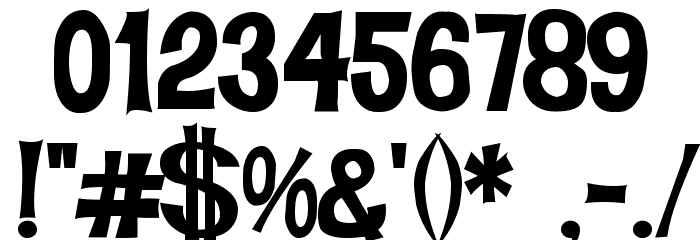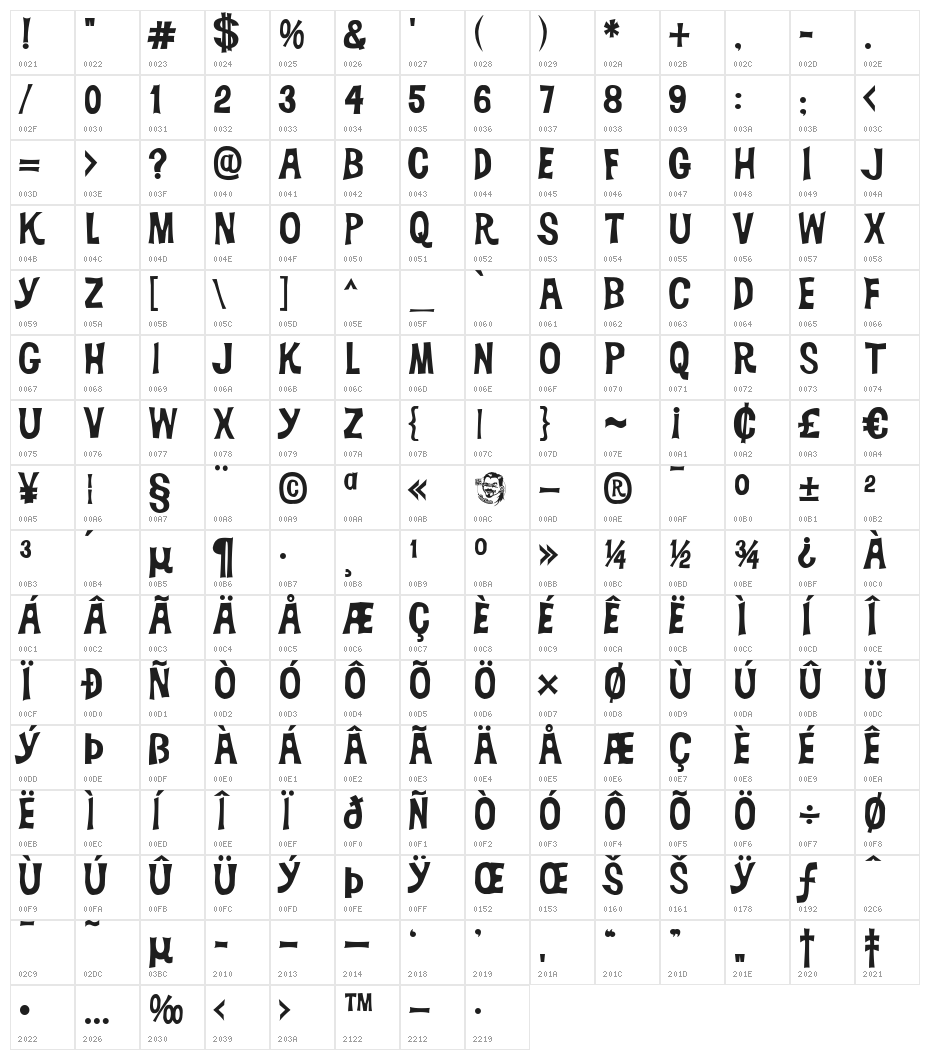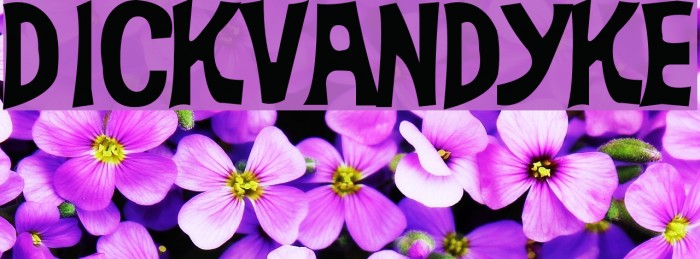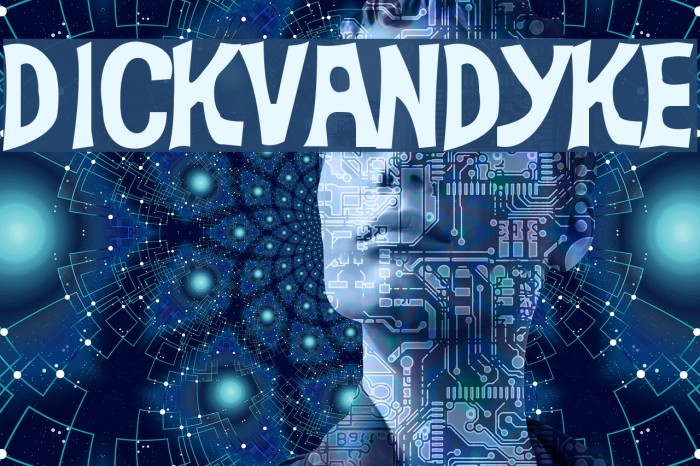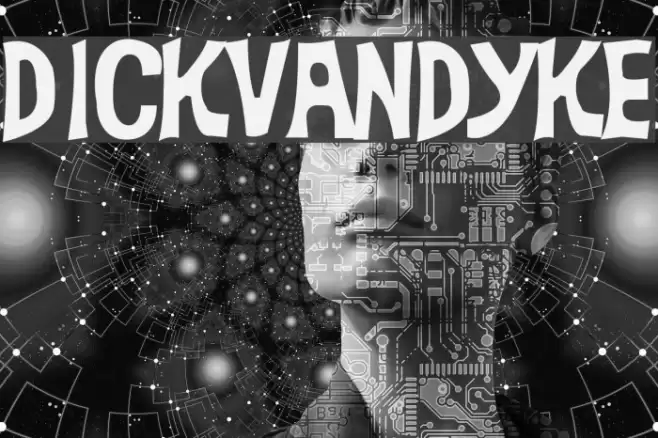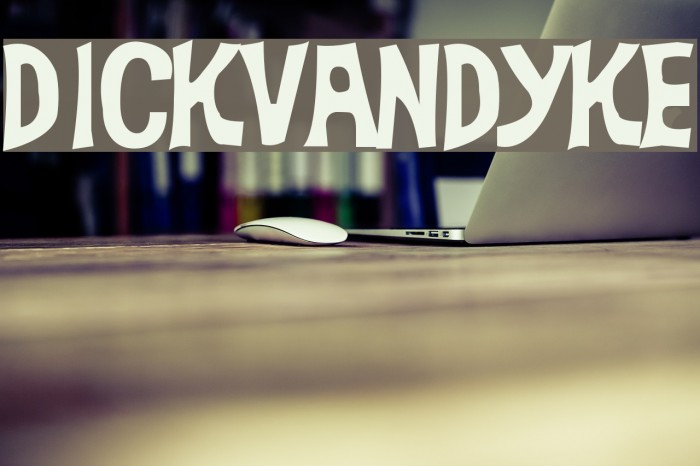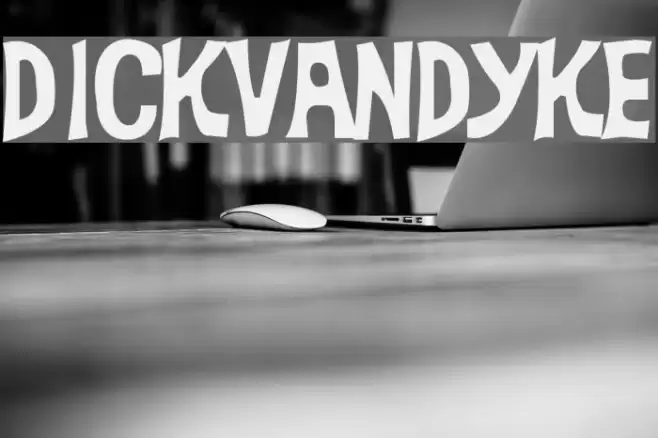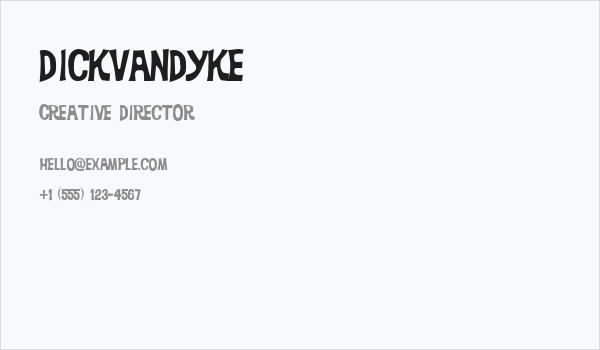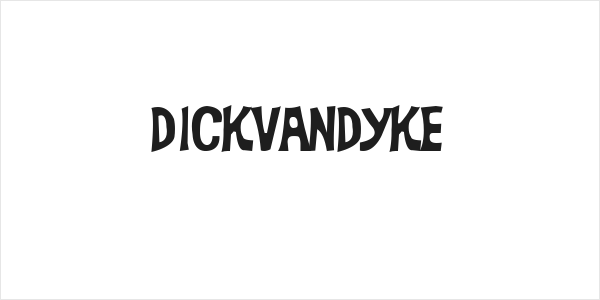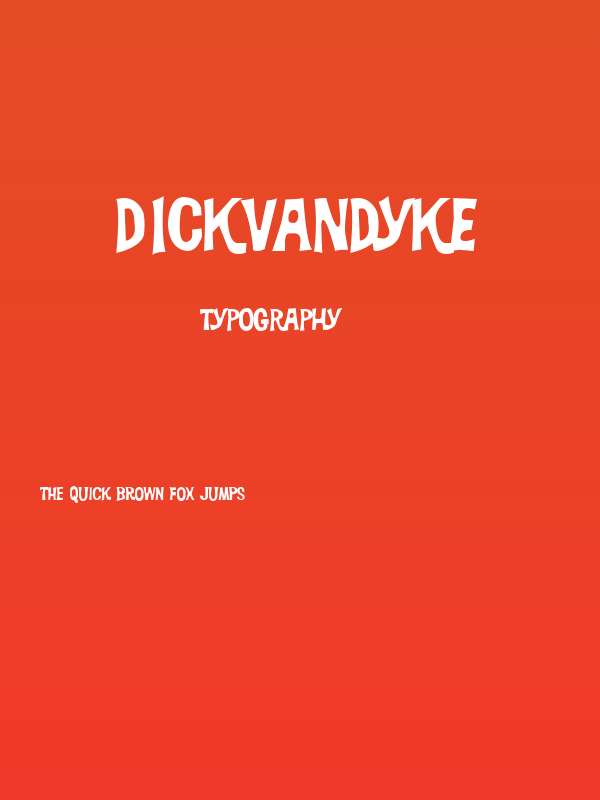
DickVanDyke Font
DickVanDyke Description
This font features a playful and bold style with exaggerated curves and angles, giving it a lively and dynamic appearance. The uppercase letters are particularly distinctive, with varying stroke widths that create a sense of movement and energy. The lowercase letters maintain this whimsical style, ensuring consistency across the typeface. Numbers and special characters are equally bold and expressive, making them stand out in any design. The overall look is reminiscent of retro or vintage styles, yet it maintains a modern twist that makes it versatile for various applications.
Overall StyleVintage, Playful
Proposed ProjectsIdeal for posters, children's books, playful branding, and retro-themed designs.